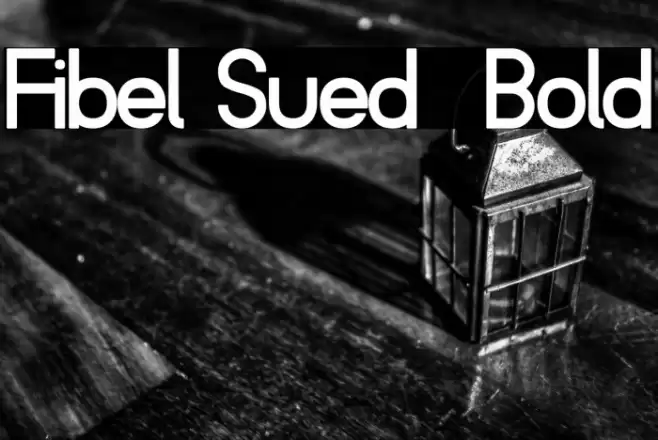
Fibel Sued Bold Font
Fibel Sued Bold Description
This font features a bold and modern sans-serif style with clean, geometric lines and uniform stroke widths. The uppercase and lowercase letters maintain a consistent height, contributing to a balanced and harmonious appearance. The numerals are clear and legible, matching the overall aesthetic of the alphabet. Special characters are designed with the same attention to detail, ensuring they integrate seamlessly with the rest of the typeface. The font's simplicity and clarity make it highly versatile for various design applications.
A bold, modern sans-serif font with clean lines and geometric shapes from Uncategorized fonts.